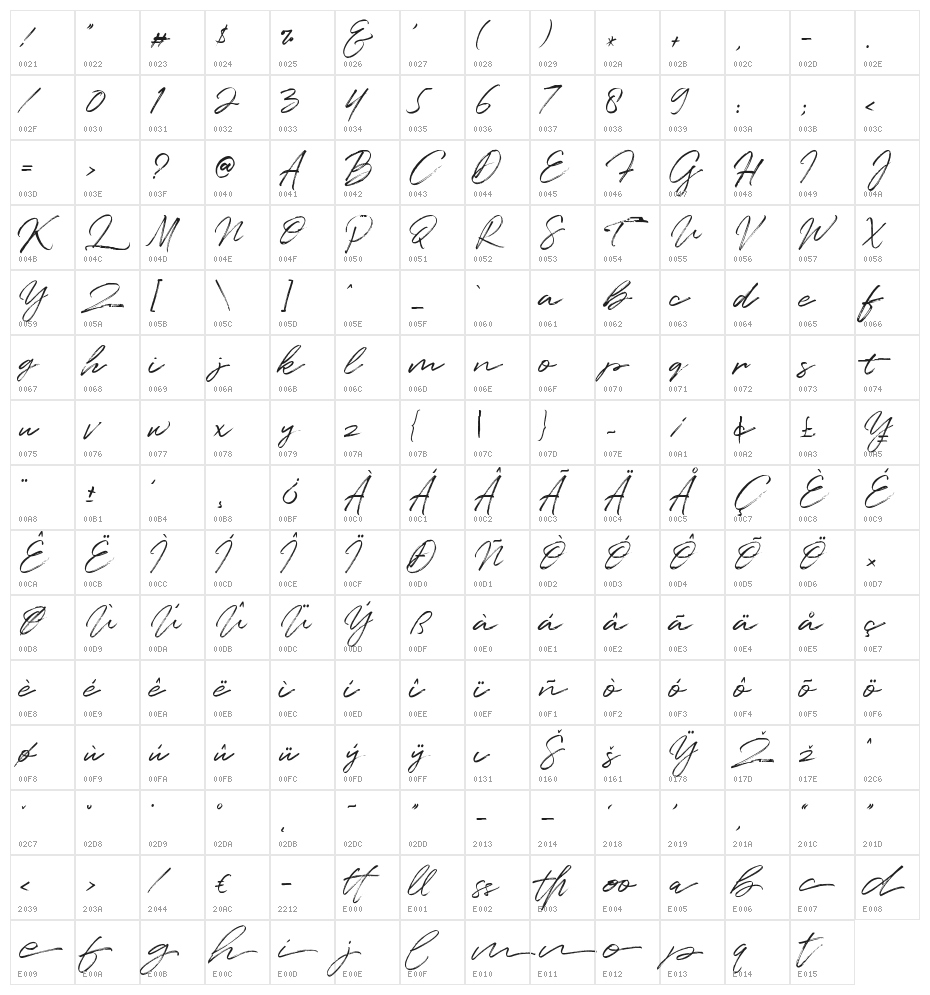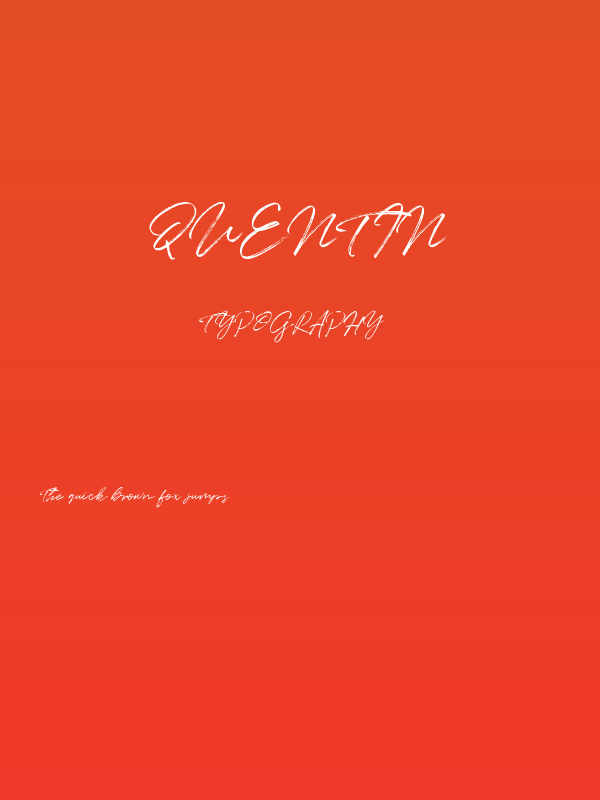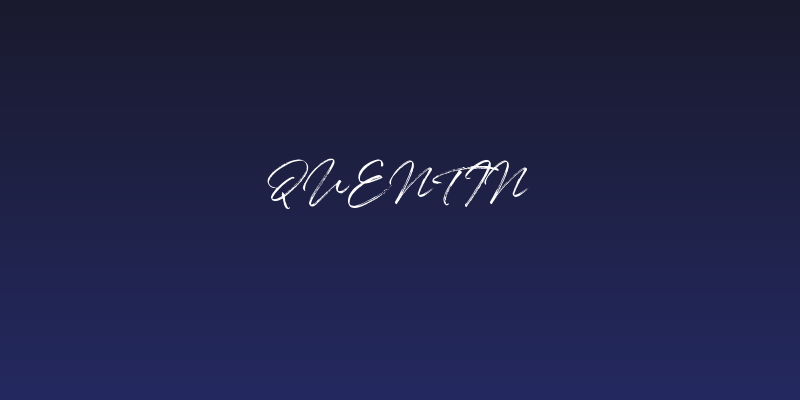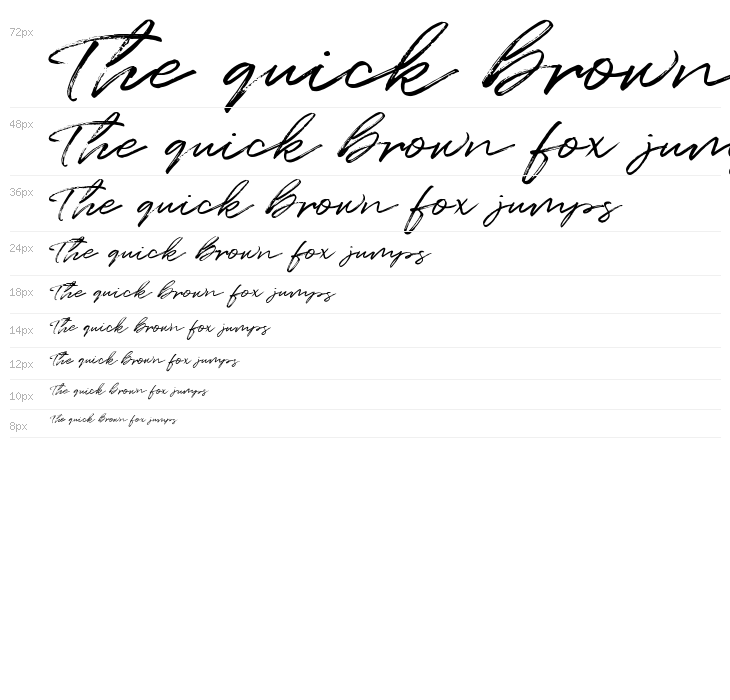
Quentin Font
Quentin Description
This font exudes a dynamic and expressive style, characterized by its fluid, cursive script that mimics natural handwriting. The strokes are varied in thickness, creating a lively and energetic appearance. The uppercase letters are bold and sweeping, while the lowercase letters maintain a consistent flow, enhancing readability. The numbers and special characters are crafted with the same attention to detail, ensuring a cohesive look across all elements. This font's organic feel and artistic flair make it ideal for projects that require a personal touch.
| Proposed Projects | Ideal for wedding invitations, greeting cards, branding projects, and artistic posters. |